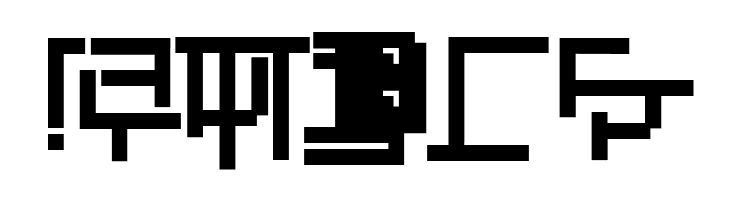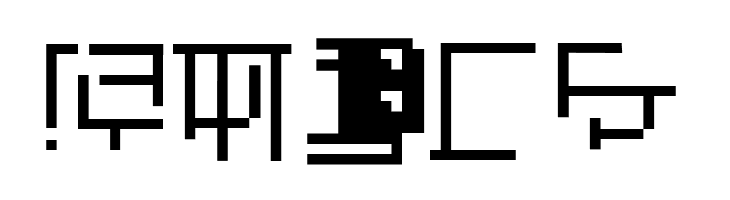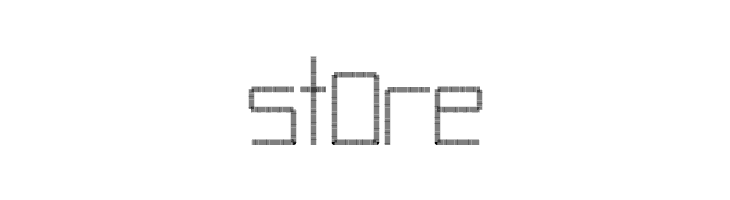
• Abstracta
A modern, linear font with a digital, geometric design.
• Abstracta
A modern, abstract font with characters formed by vertical lines.
• Abstracta-Bold
A bold, geometric font with an abstract, digital aesthetic.
• AbstractaGrid
A geometric, pixelated font with a futuristic and digital aesthetic.
• AbstractBats
Ornamental dingbat set with abstract and animal motifs.
• AbstractClassicCuts
Abstract, collage-like font using cutout imagery for each character.
• AbstractConcretLogo
A decorative dingbat set featuring abstract, geometric, and pictorial icons.
• AbstractFaces
A decorative set of abstract, face-like symbols with bold, intricate designs.
• AbstractFacesThree
A collection of abstract, artistic symbols resembling faces, with unique and intricate designs.
• AbstractFragments
Abstract, fragmented silhouettes form each character in a bold, decorative style.